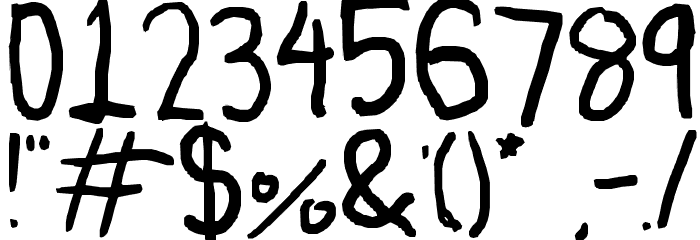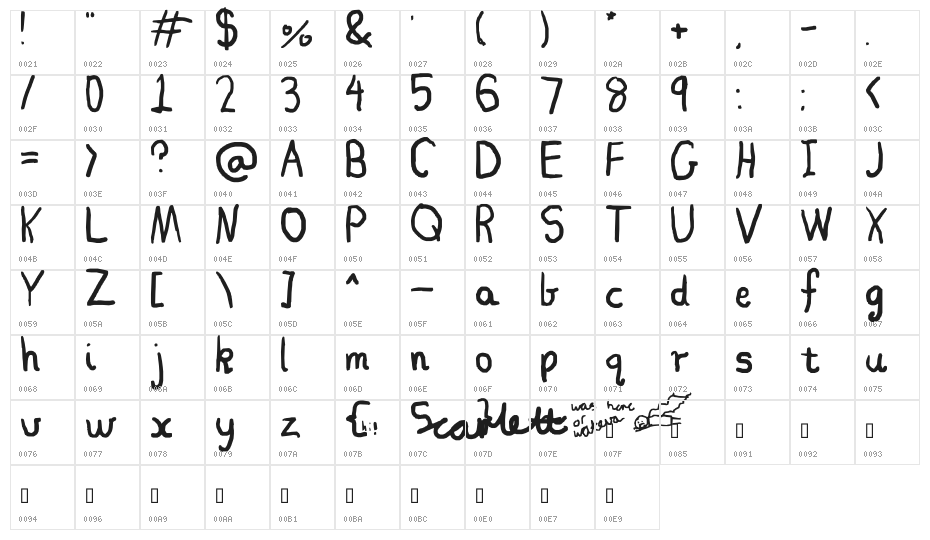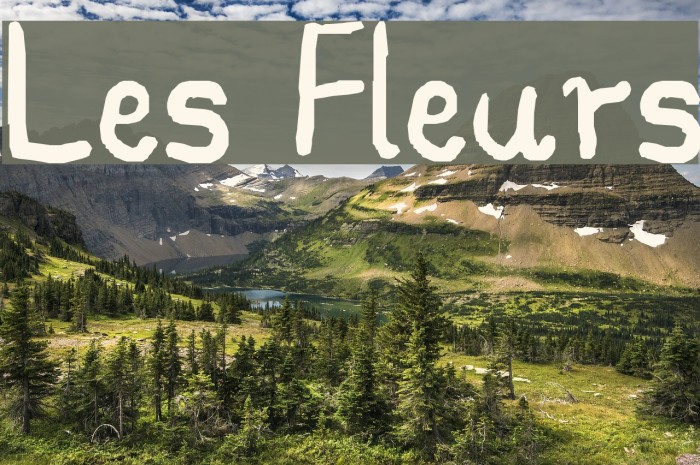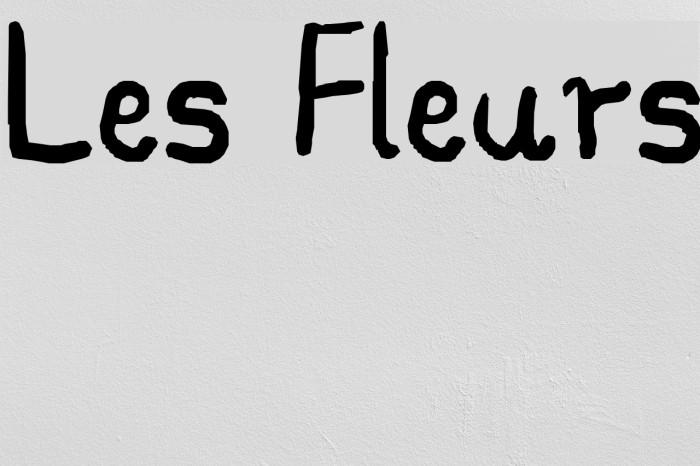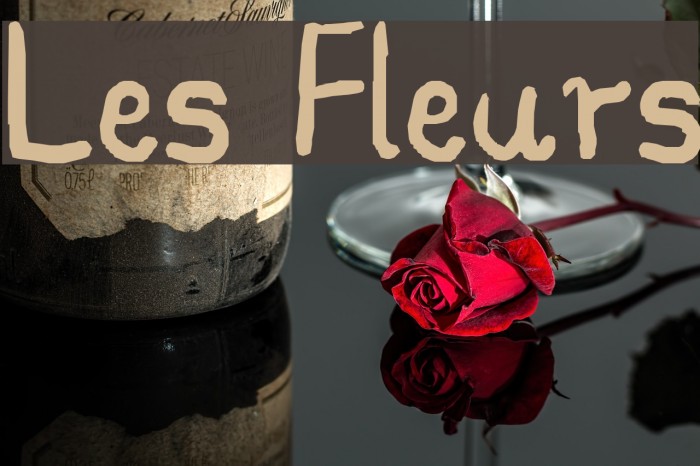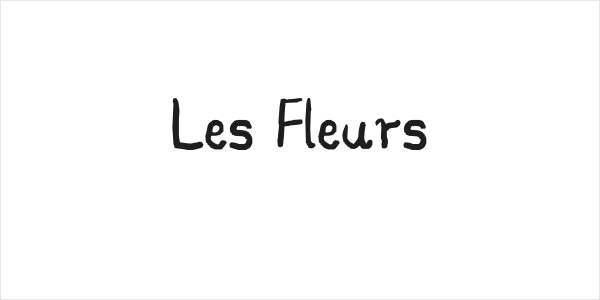
Les Fleurs Font
Les Fleurs Description
This font exhibits a playful and hand-drawn aesthetic, characterized by its irregular and organic letterforms. Each character appears to be crafted with a brush or marker, giving it a casual and artistic feel. The uppercase and lowercase letters maintain a consistent style, with rounded edges and varying stroke widths that add to its charm. The numerals and special characters follow the same whimsical design, making the font suitable for creative and informal applications. Its unique style is reminiscent of handwritten notes or artistic sketches, providing a personal touch to any project.
| Use Case | Headlines, Logos, Artistic projects |
| Proposed Projects | Ideal for greeting cards, children's books, artistic posters, and creative branding. |